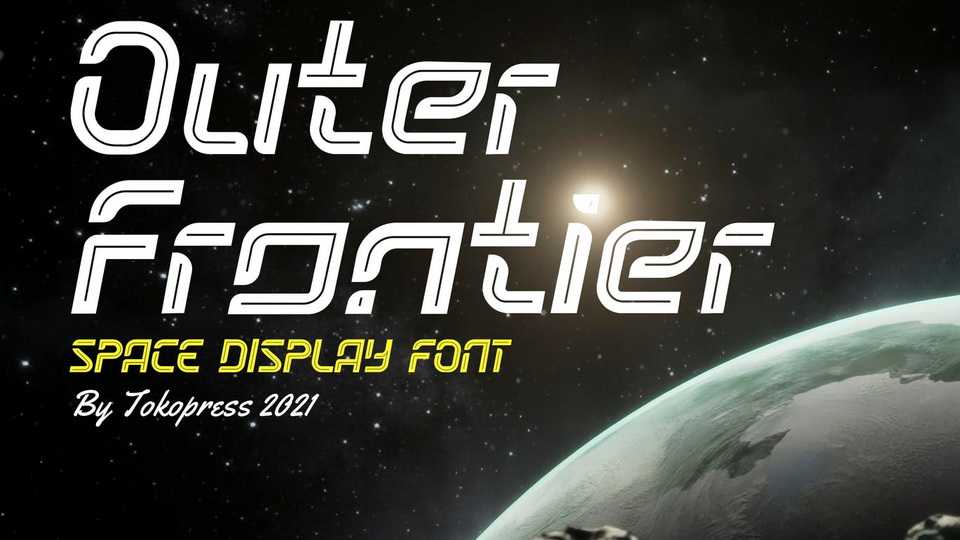
Download Outer Frontier font, a futuristic display typeface. Outer Frontier font suits perfectly for future and science segmented magazines, posters, movie titles, music posters and so on…